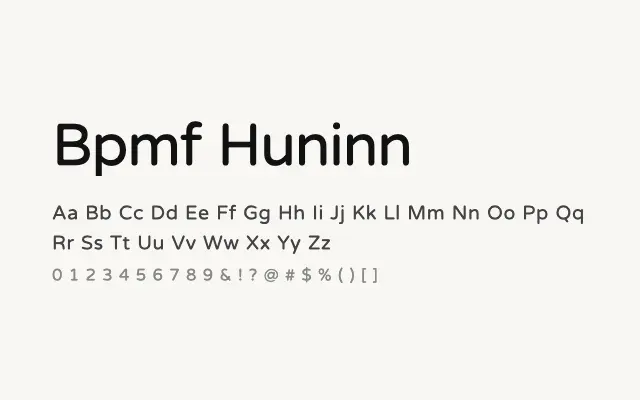
Bpmf Huninn
A Taiwanese Traditional Chinese sans-serif with strong Bopomofo support, designed for readable screen and educational use.
Bpmf Huninn addresses the specific typographic needs of Taiwan's educational system, where Bopomofo annotations are essential for early readers and language learners. Its clean, upright stroke structure makes it practical for interfaces, apps, and digital publishing in Traditional Chinese. The Latin glyphs are thoughtfully matched to the CJK character weight, producing cohesive multilingual layouts.
Bpmf Huninn is a Traditional Chinese sans-serif designed with particular attention to the Bopomofo (注音符號) phonetic system used in Taiwan, offering clean, screen-optimised strokes for educational and interface use. Its Latin companion is harmonised in weight and proportion with the Chinese glyphs.